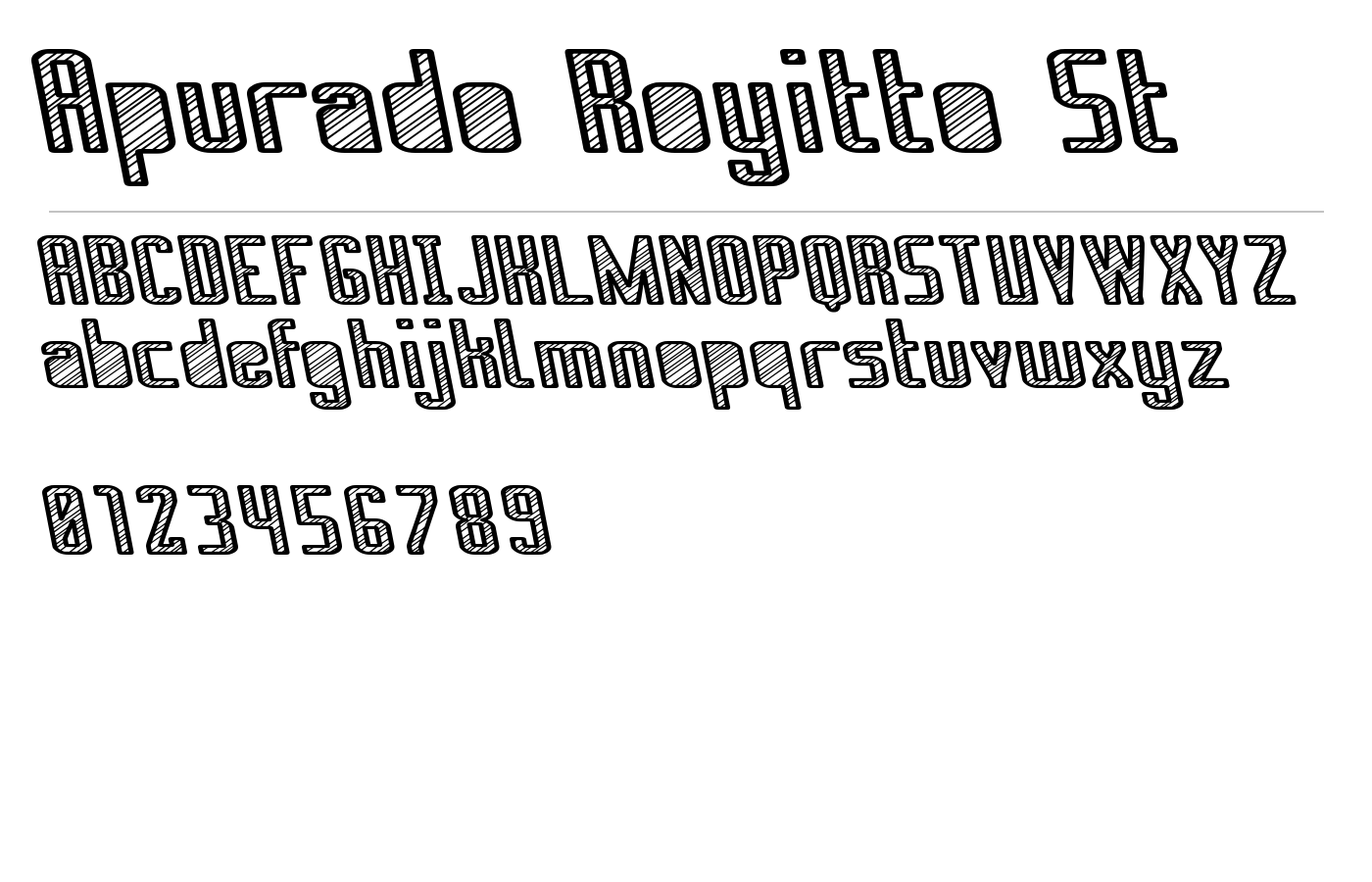
Apurado Royitto St is a distinctive sans serif font with a playful geometric style, featuring tall, narrow letterforms with diagonal hatch shading that adds texture and depth. Its upright, slightly condensed characters carry consistent stroke weight and a unique, hand-crafted feel, making it ideal for eye-catching headlines, posters, or creative branding where a modern yet quirky look is desired. This font works well in designs seeking a bold, artistic presence without sacrificing readability.
Apurado Royitto St Font
About Apurado Royitto St Font
| Font family | Apurado Royitto St Font |